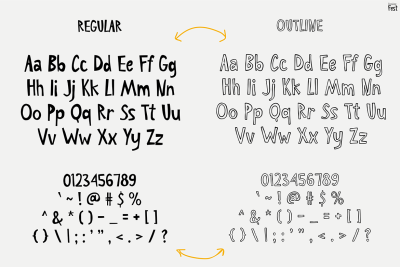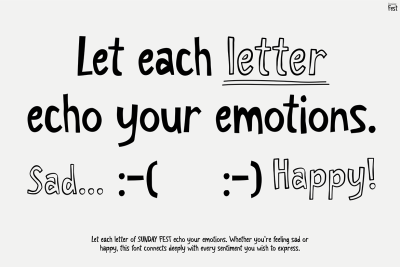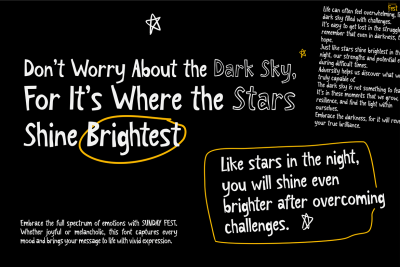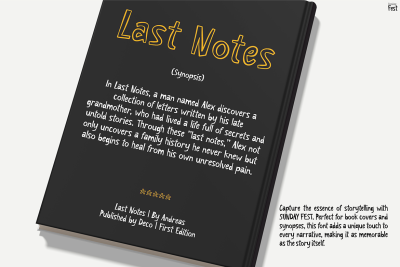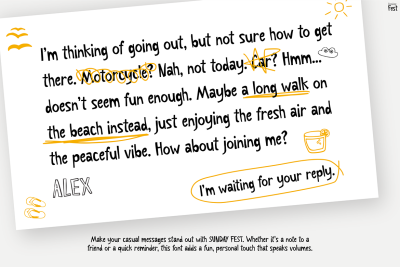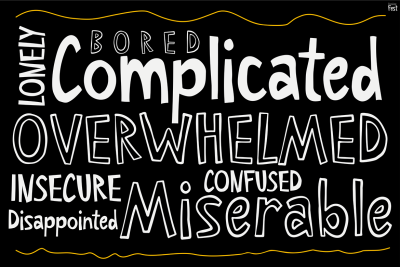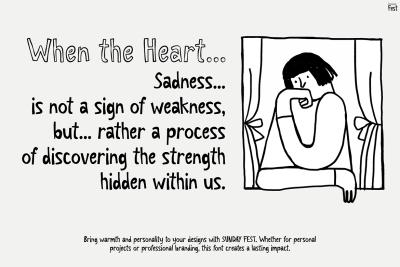
Handwriting Font Sunday Fest is perfect for those who seek a lively, expressive, and personal touch in their designs. This font stands out with its dynamic, hand-drawn aesthetic, evoking a casual yet stylish feel. Its irregular letterforms create an organic, free-flowing look that mimics natural handwriting, making words feel intimate and engaging. Whether for casual messages, creative projects, or branding, Sunday Fest brings warmth and personality to any text.
What makes this font unique is its ability to capture emotions through playful strokes and varied character shapes. The slightly irregular baseline and changing stroke thicknesses create a friendly, natural feel, perfect for evoking joy, excitement, and creativity. Additionally, it is designed for readability, balancing artistic charm with practicality. Furthermore, fun decorative elements, such as hand-drawn doodles and highlights, further enhance its playful nature.
Handwriting Font Sunday Fest Perfect For?
Handwriting Font Sunday Fest is ideal for anyone who wants to add personality and creativity to their designs. Whether you’re a designer, marketer, content creator, or business owner, this font helps messages stand out in a crowded digital space. Its engaging design suits various creative needs.
- Creative Professionals: Artists, illustrators, and graphic designers can use Sunday Fest to bring a handmade feel to their projects. Its expressive strokes add a personal touch that enhances visual storytelling.
- Small Business Owners & Entrepreneurs: Whether for social media graphics, product packaging, or promotional materials, this font adds a fun, friendly element to branding efforts. As a result, it helps businesses connect with audiences authentically.
- Educators & Content Creators: Teachers, bloggers, and online course creators can use Sunday Fest to make learning materials more engaging and visually appealing. Since eye-catching content captures attention more effectively, this font makes educational materials stand out.
- Event Planners & Invitation Designers: Ideal for wedding invitations, greeting cards, and party announcements, Sunday Fest brings a casual yet elegant charm to special occasions. Consequently, it helps designers create warm, inviting event materials.
- Social Media Influencers: Those who want to make their posts, captions, and stories more expressive will love how Sunday Fest enhances visual appeal. Given that social media thrives on creativity, this font is an excellent choice for standout posts.